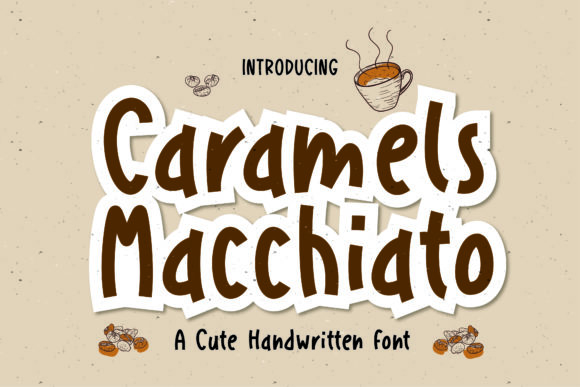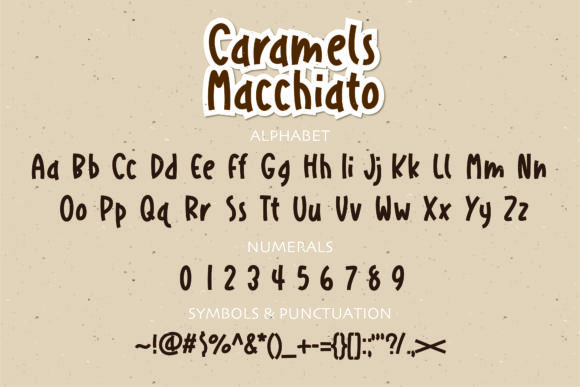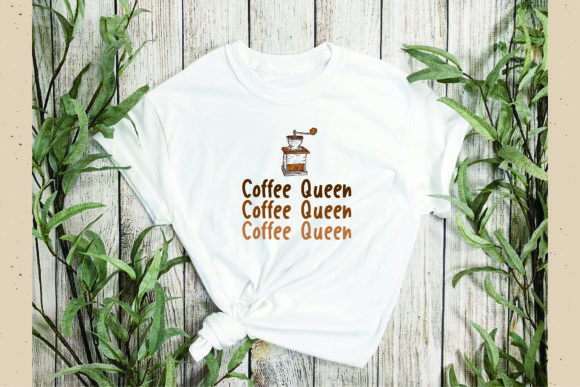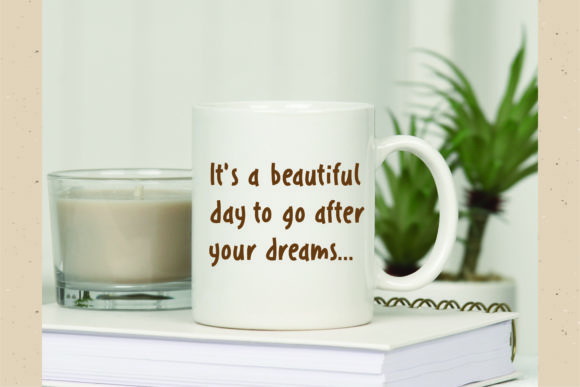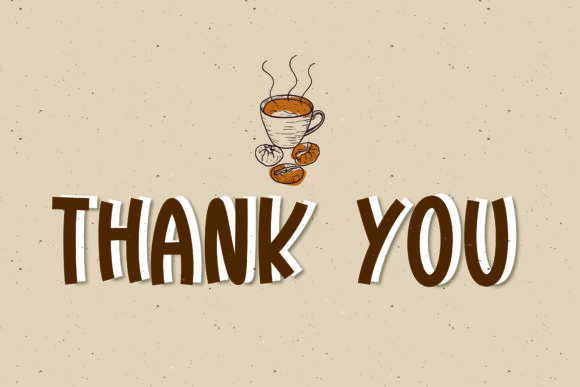
Caramels Macchiato Font
About Caramels Macchiato Font
Caramels Macchiato is a cute and flexible handwritten font. Its natural and unique style makes it incredibly fitting to a large pool of designs. Have fun with this beautiful font and explore its endless variations. It looks stunning on wedding invitations, thank you cards, quotes, greeting cards, logos, business cards, and every other design that needs a handwritten touch.